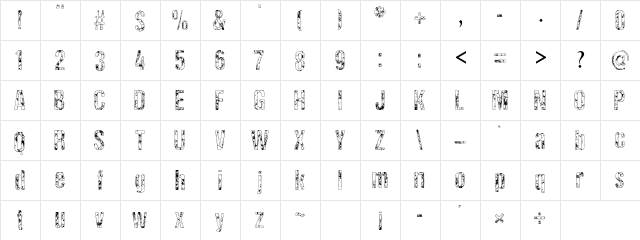
RockBiter Regular
Design Context for RockBiter Typeface
RockBiter is a composed and adaptable typeface that performs quietly and consistently across a wide range of design contexts.